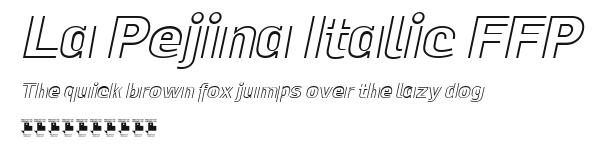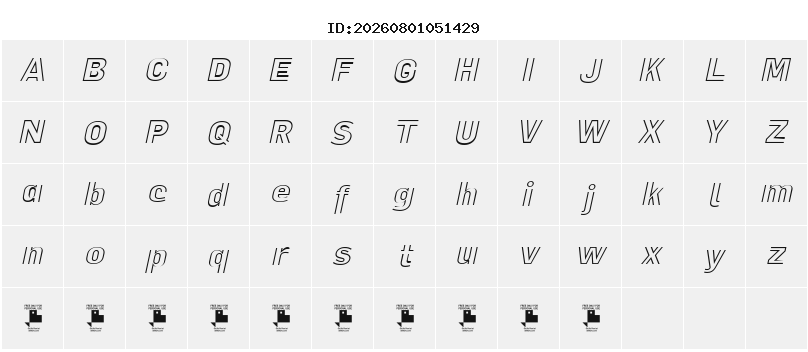
• Font Name: La Pejina Italic FFP
• Designer: deFharo
• Description: TipografÌa sans serif de con doble outline para carteles, posters o publicaciones. Descarga gratis la versiÛn completa de la fuente en: http://defharo.com/dise%c3%b1o-grafico/tipografia/la-pejina-font/ Get a free full font at defharo.com
About La Pejina Italic FFP.ttf
La Pejina Italic FFP.ttf is a modern, elegant sans-serif font designed for ultimate readability and visual harmony. Perfect for branding, headlines, web design, and print materials.